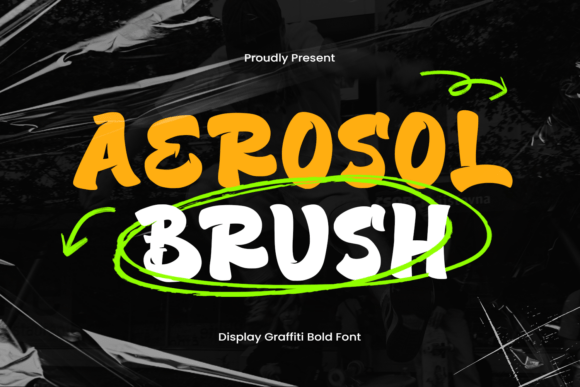
The Art of Street Expression
Imagine walking through a vibrant city, surrounded by the raw energy of street art. The murals, the graffiti, the bold typography – it’s a visual feast that sparks creativity and inspires the soul. For designers, capturing that essence in a digital format can be a challenge, but with the right tools, the possibilities are endless.
Enter the Aerosol Brush Font – a bold and energetic brush-style font that embodies the spirit of street art. With its expressive strokes and hand-painted texture, this font is perfect for designers looking to add a dynamic, eye-catching effect to their projects. Whether you’re designing a logo, poster, or product packaging, Aerosol Brush Font delivers a strong visual punch that stands out from the crowd. Its free-flowing brush style is a perfect blend of boldness, texture, and urban flair that makes every project look powerful and alive.
Aerosol Brush Font Key Features
- Unique Hand-Drawn Design: Aerosol Brush Font features a distinctive, hand-drawn look with a bold and playful aesthetic.
- Customizable: Aerosol Brush Font offers a range of customization options, including font weight, style, and spacing, to suit your design needs.
- Legibility: Despite its bold design, Aerosol Brush Font remains highly legible, making it suitable for a wide range of applications, from signage to digital displays.
- Multi-Lingual Support: Aerosol Brush Font includes support for a variety of languages, including English, Spanish, French, and many more.
A Designer’s Review: Aerosol Brush Font
When I first laid eyes on Aerosol Brush Font, I was immediately drawn in by its unique, hand-painted aesthetic. ✨ The font’s bold, expressive strokes and subtle texture give it a raw, organic feel that’s perfect for adding a touch of whimsy to any design. ✨ I love how the font’s imperfections and variations in letterform make it feel truly one-of-a-kind.
One of the things that really stood out to me about Aerosol Brush Font is its versatility. ✨ It’s just as at home on a bold, eye-catching headline as it is in smaller text or even as a display font. The font’s wide range of weights and styles means you can use it to create a cohesive look across multiple elements in your design.
- ⚠️ Limited legibility at small font sizes – the font’s bold, expressive strokes can become difficult to read in smaller text.
- ⚠️ Not ideal for body text or long blocks of copy – the font’s organic feel can become overwhelming if used extensively.
Overall, I’m really impressed with Aerosol Brush Font. While it may have some limitations, its unique aesthetic and versatility make it a great choice for designers looking to add a touch of personality to their work.
Getting the Most Out of Aerosol Brush Font
To get the most out of Aerosol Brush Font, try combining it with bold or italic text to create a striking effect.
Experiment with different font sizes and colors to achieve a unique look.
Aerosol Brush Font is ideal for creating bold, eye-catching headlines and titles.
It’s also great for adding a touch of graffiti-style flair to your designs.
Aerosol Brush Font Alternatives
Great Vibes Font is a beautiful, handwritten font that works well for designs that require a touch of elegance and sophistication. It is ideal for use in branding, advertising, and editorial design. Great Vibes Font is more refined and polished compared to Aerosol Brush Font, making it suitable for a wider range of applications.
Alex Brush Font is a high-quality, brush script font that is perfect for designs that require a sense of luxury and sophistication. It is ideal for use in branding, packaging, and invitation design. Alex Brush Font is more elegant and refined compared to Aerosol Brush Font, making it suitable for high-end designs.
Carolyna Pro Font is a modern, brush script font that is perfect for designs that require a sense of style and sophistication. It is ideal for use in branding, advertising, and editorial design. Carolyna Pro Font is more versatile and adaptable compared to Aerosol Brush Font, making it suitable for a wide range of applications.